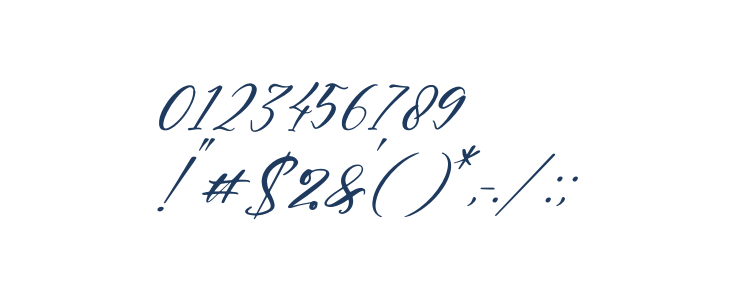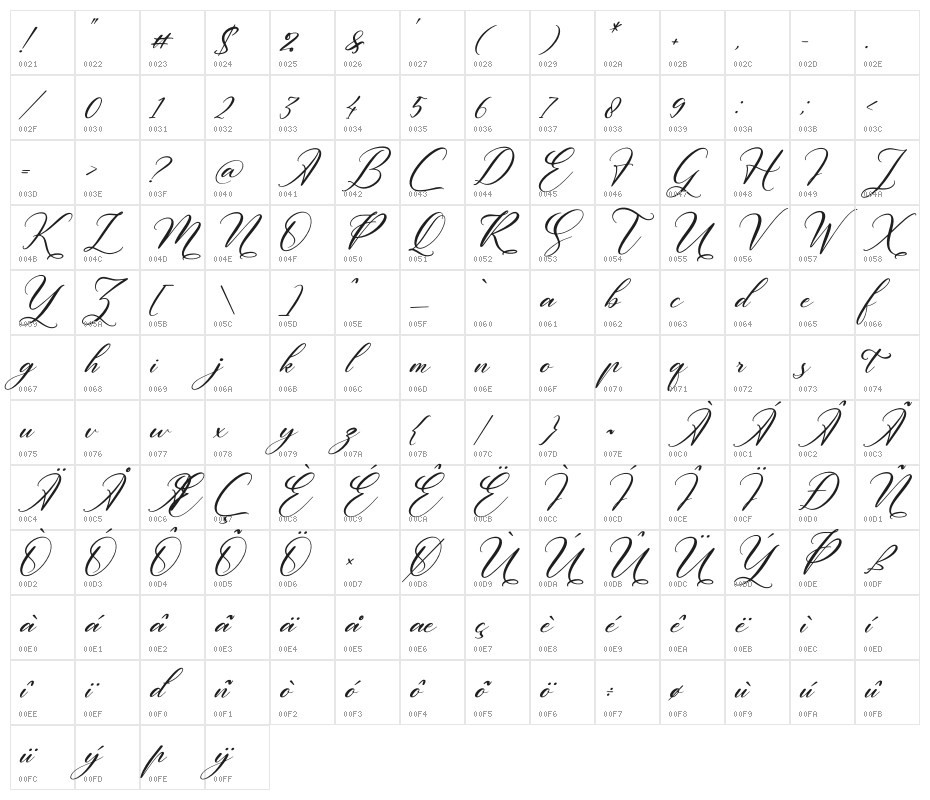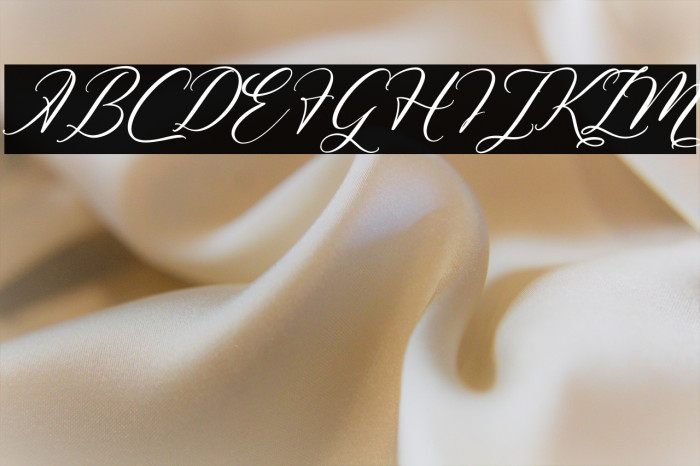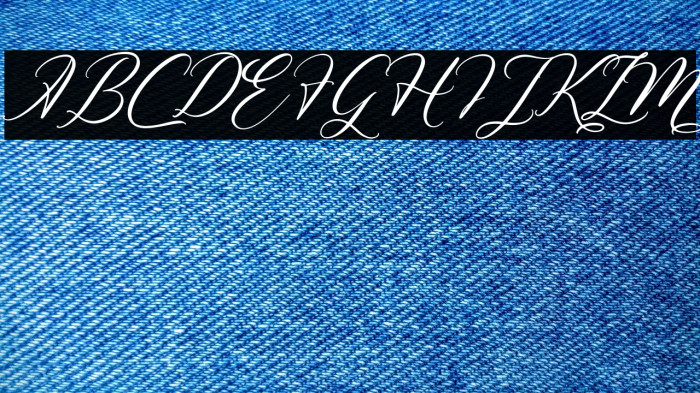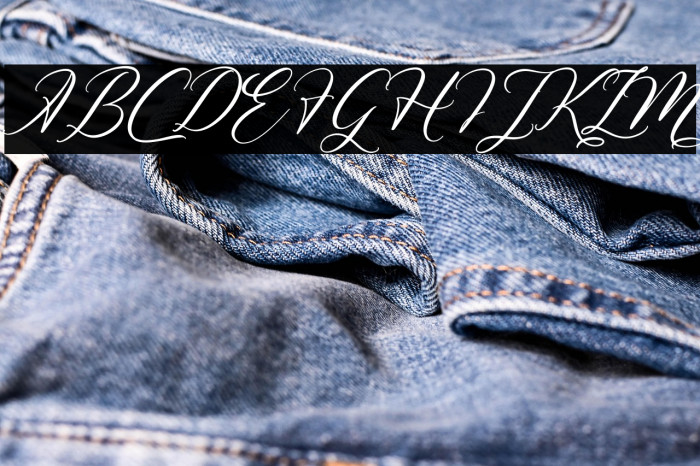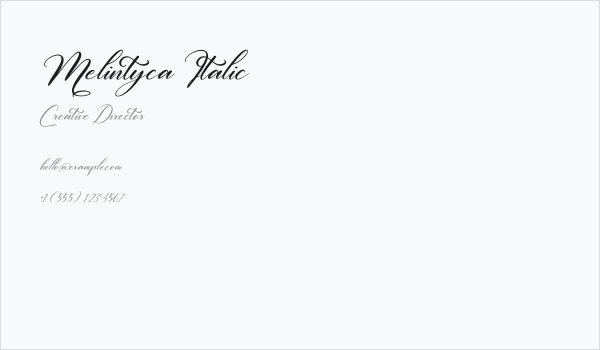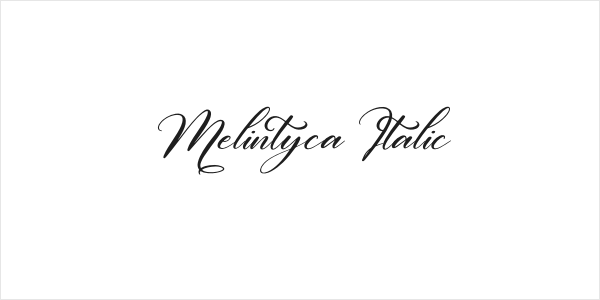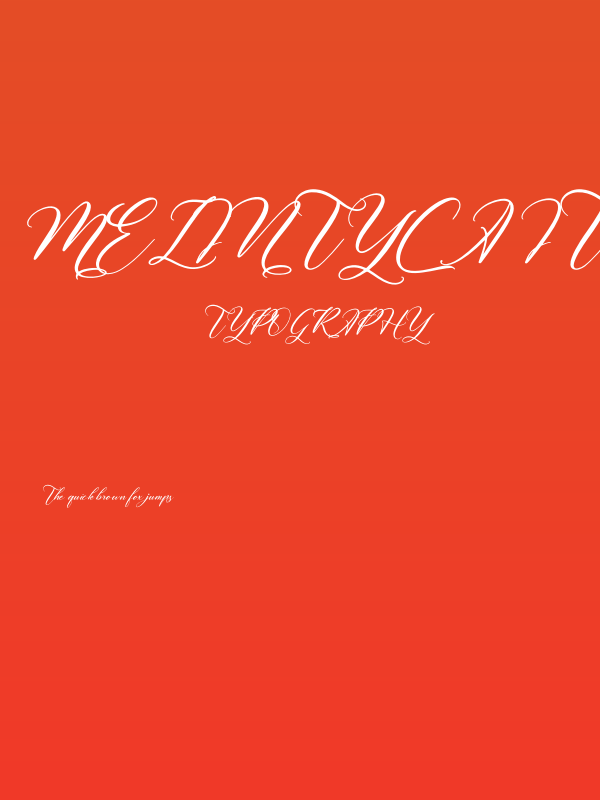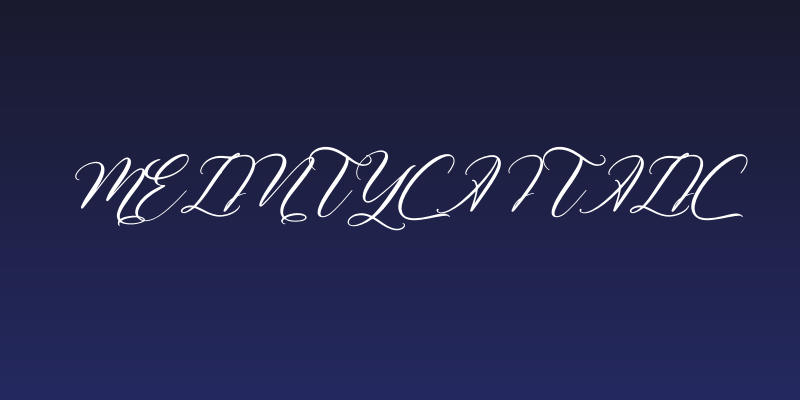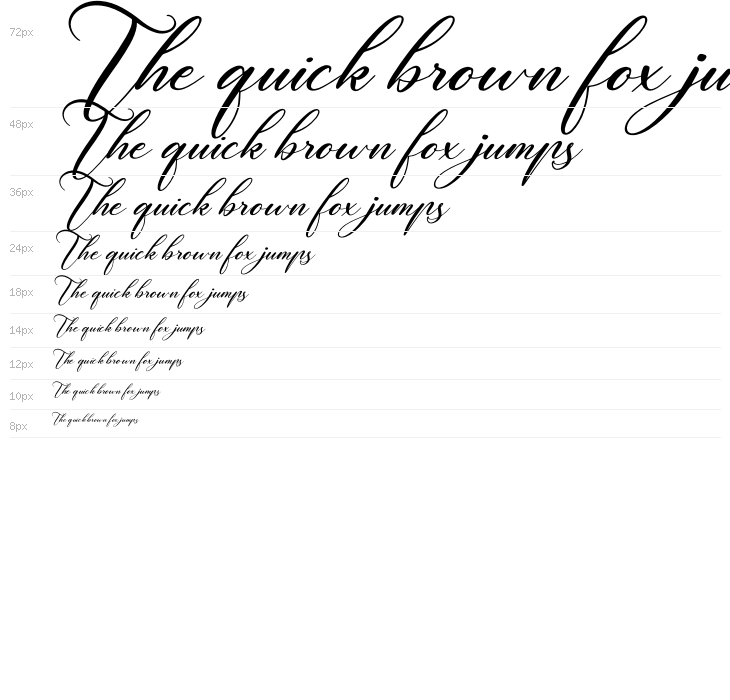
Melintyca Italic Font
Melintyca Italic Description
This font exhibits a flowing, elegant script style with a distinct italic slant. The characters are intricately designed with high contrast between thick and thin strokes, giving it a sophisticated and artistic appearance. The uppercase letters are ornate, featuring elaborate loops and flourishes, while the lowercase letters maintain a graceful continuity. The numerals and special characters are equally stylized, maintaining the overall aesthetic. This font is ideal for projects that require a touch of elegance and formality.
| Overall Style | Elegant, Decorative |
| Use Case | Headlines, Invitations, Branding |
| Proposed Projects | Ideal for wedding invitations, luxury branding, elegant stationery, and decorative headlines. |